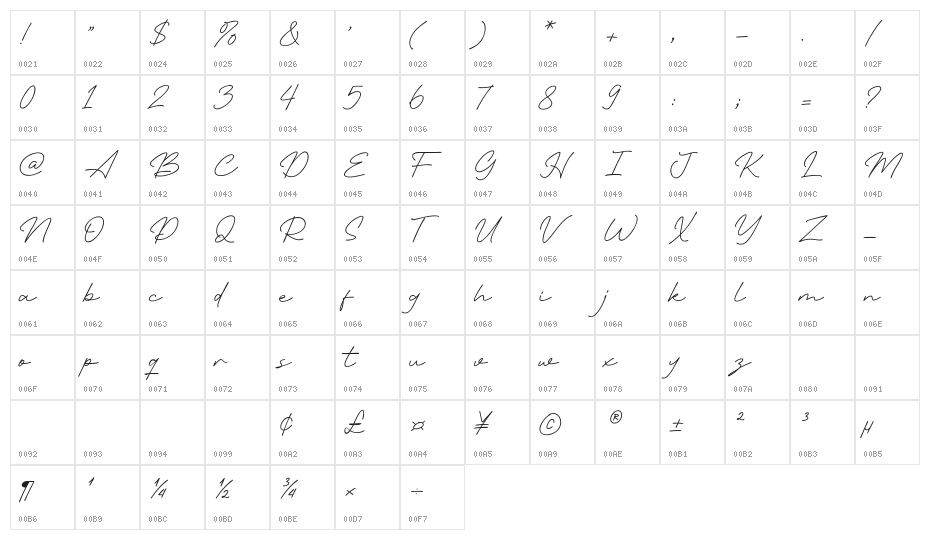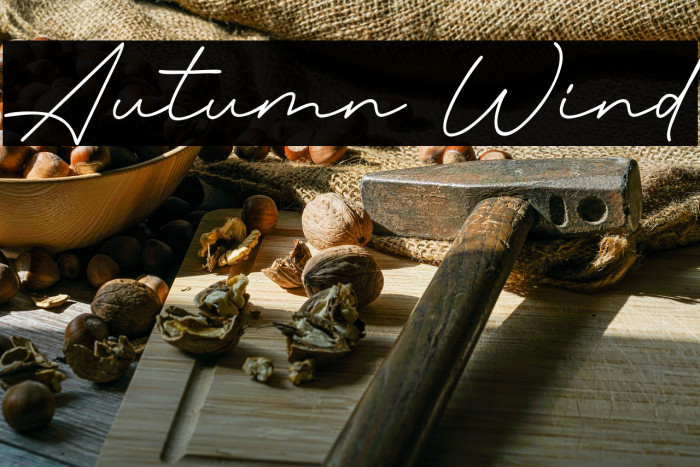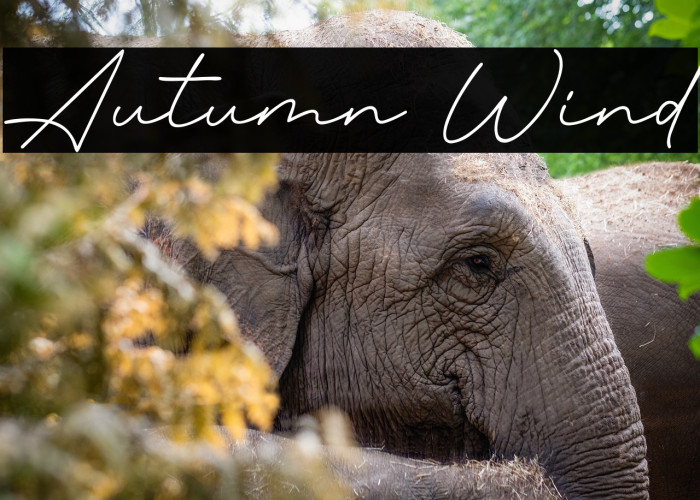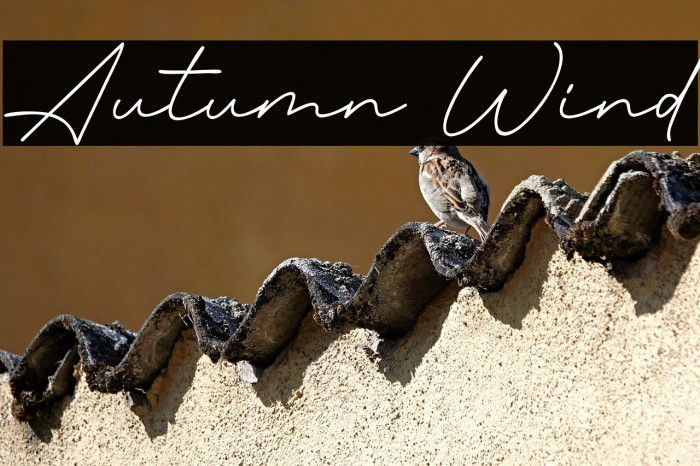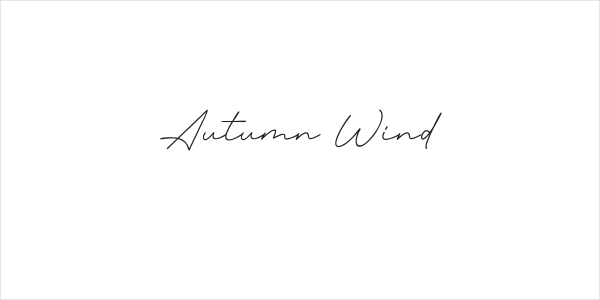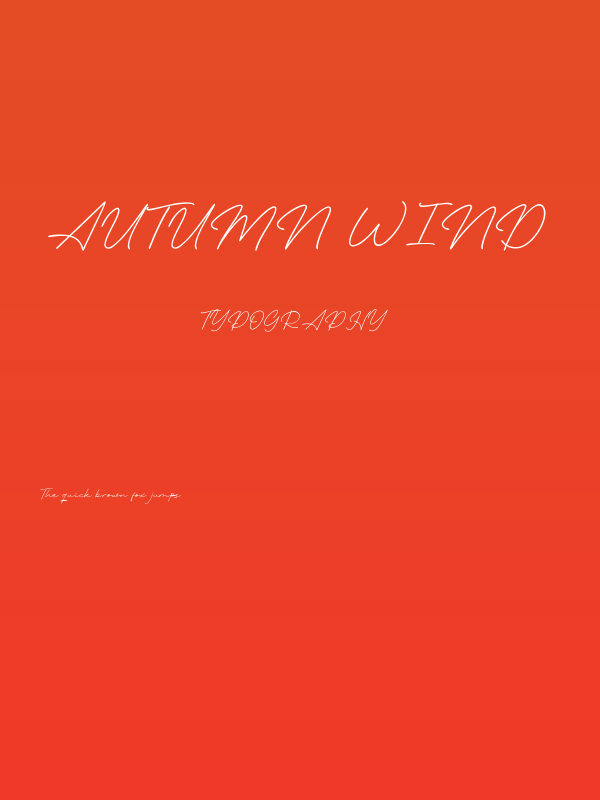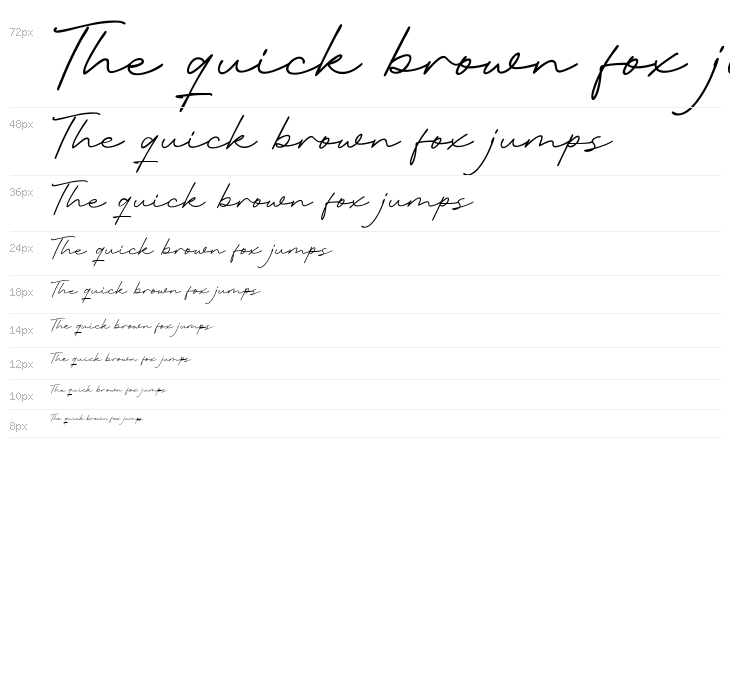
Autumn Wind Font
Autumn Wind Description
This elegant script font features a flowing, cursive style that mimics natural handwriting. The letters are connected, creating a seamless and fluid appearance. The strokes are thin and delicate, giving the font a graceful and sophisticated look. The uppercase letters are slightly more ornate, while the lowercase letters maintain a consistent flow. The numerals and special characters are designed to match the overall aesthetic, ensuring a cohesive appearance across all text. This font is perfect for projects that require a personal touch or a sense of elegance.
| Overall Style | Elegant, Handwritten |
| Use Case | Logos, Invitations, Personal Correspondence |
| Proposed Projects | Ideal for wedding invitations, greeting cards, personal letters, and branding materials that require an elegant touch. |